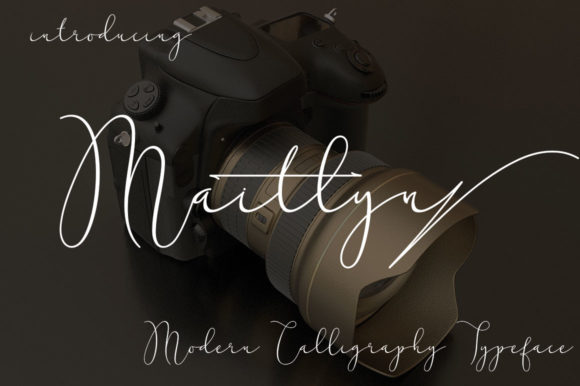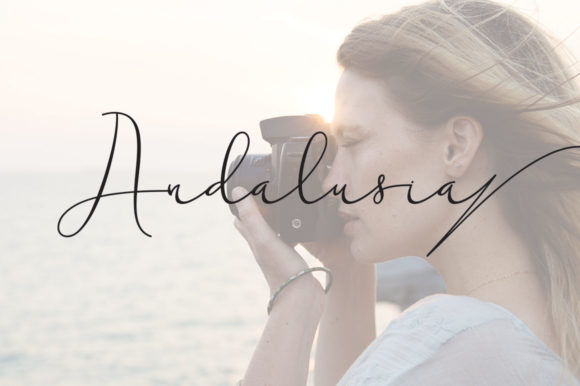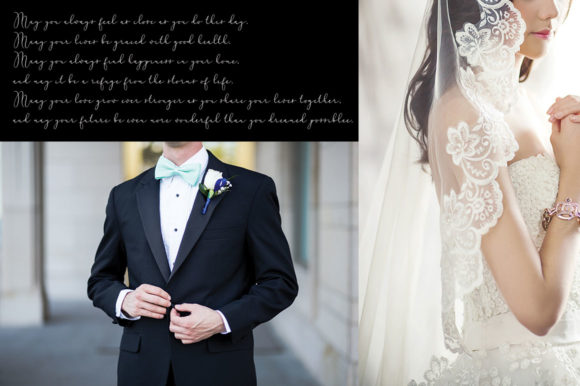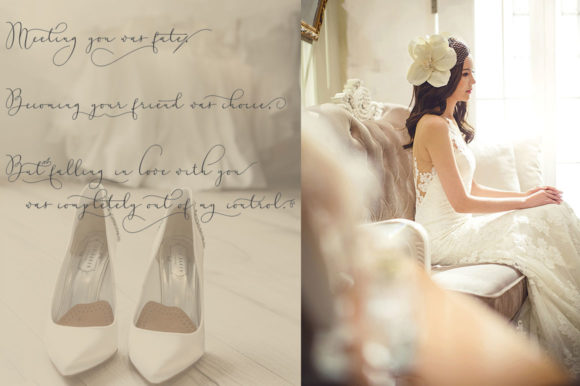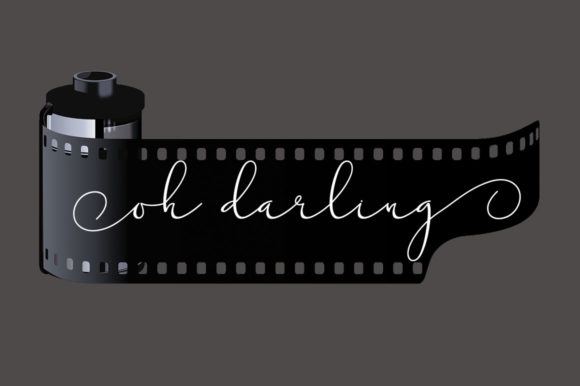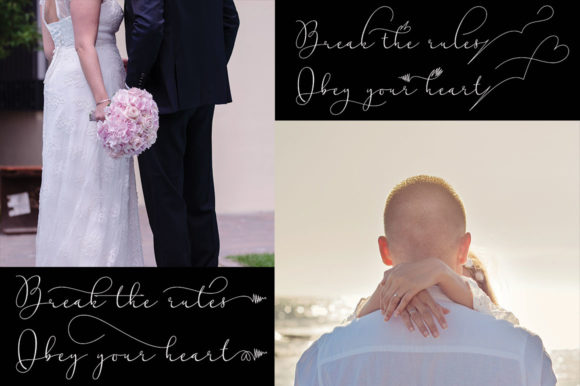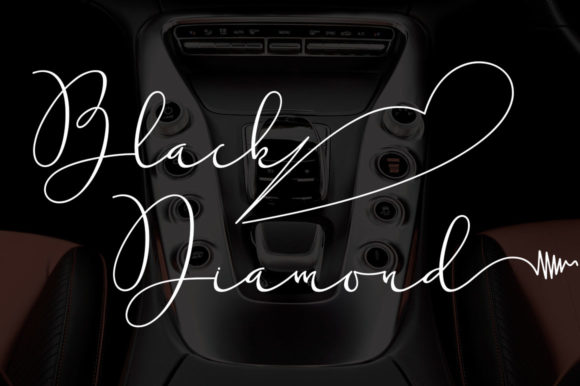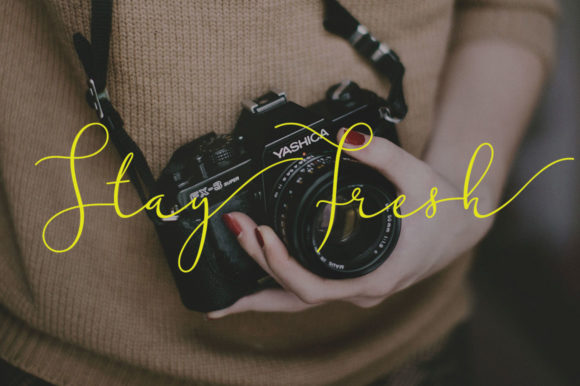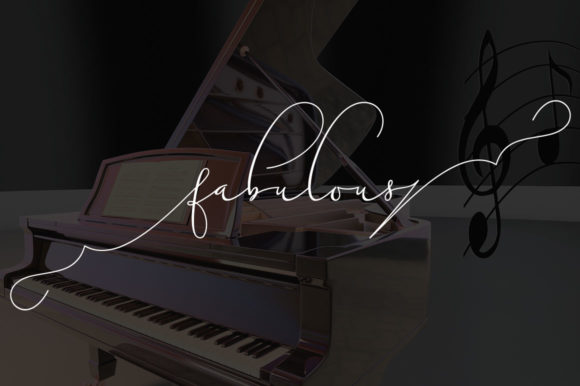
Maitlyn Font
About Maitlyn Font
The Maitlyn is a lovely modern calligraphy typeface. It’s combining a classic calligraphy style with a modern touch and is perfect for creating amazing and unique designs.